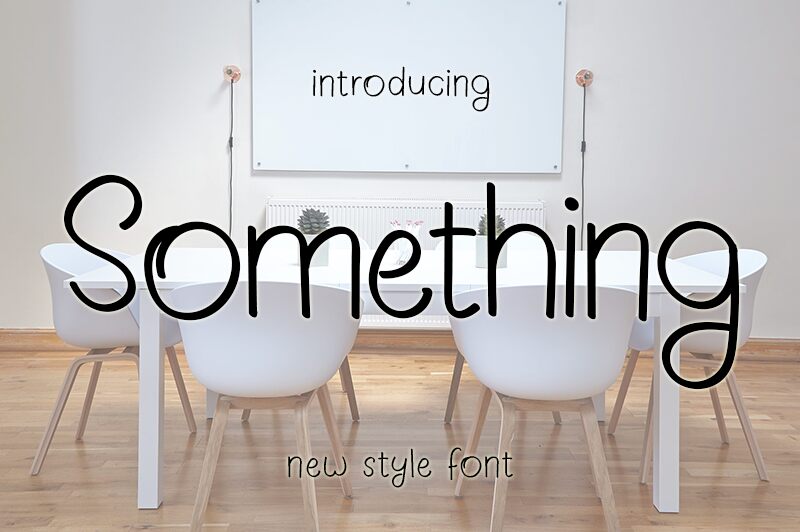
Meet Something, the perfect font for any project that needs a touch of whimsy and charm. Designed by Nur Edi Prayitno, this light-weighted, cute handwritten font will bring a playful and unique vibe to your designs. Whether you're crafting invitations for your next birthday party or designing a logo for your new business venture, Something is an excellent choice to convey creativity and individuality. Use it on children's books, social media graphics, or even on product packaging to add a personal touch that will make any project stand out. Get creative with Something!
Something
Nur Edi Prayitno